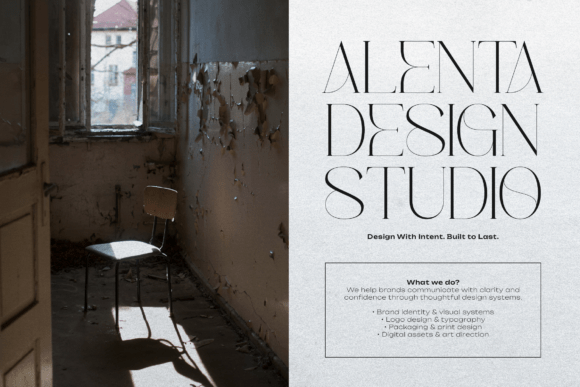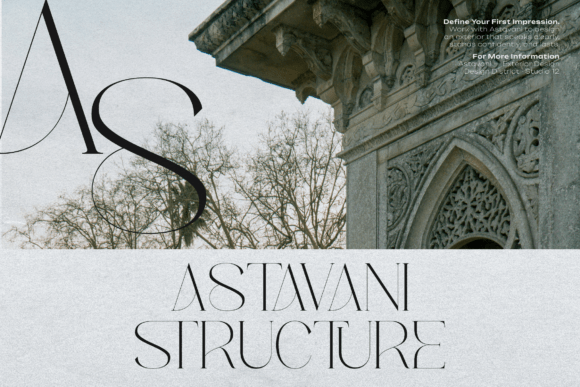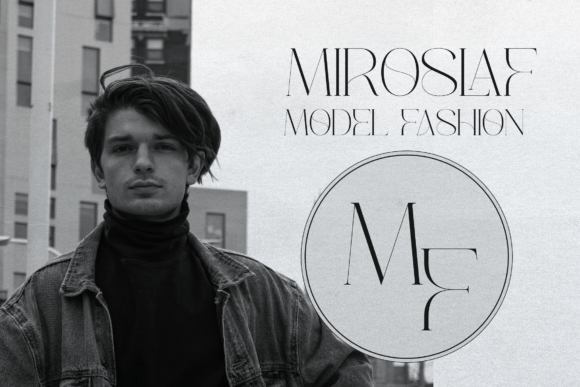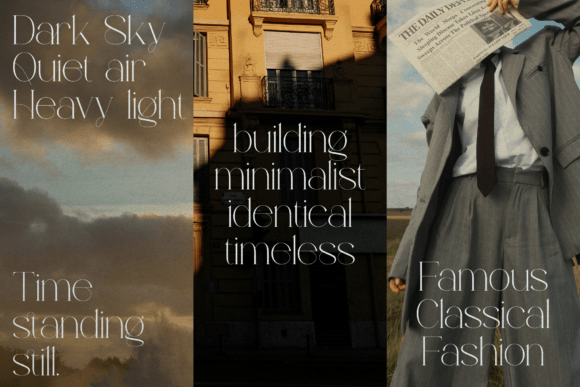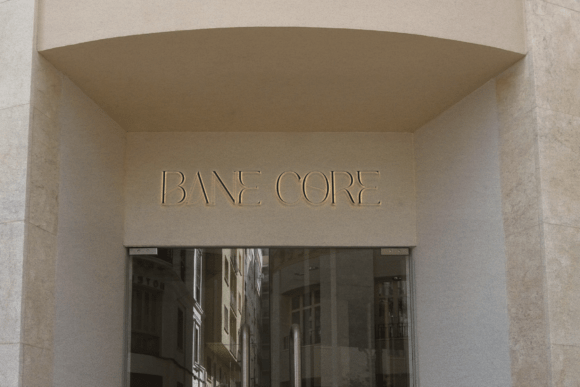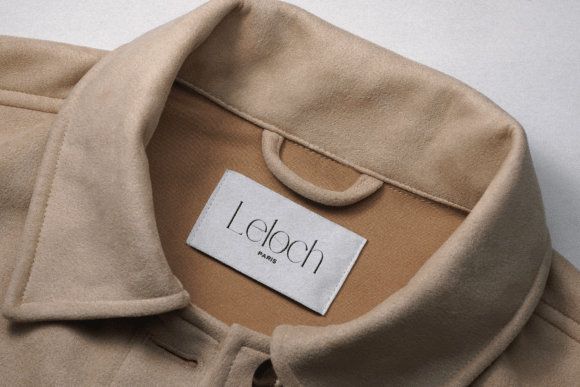
Introducing Arsenov Font: The Modern Classic Ligature Serif
In the world of typography, few fonts manage to strike a balance between classic elegance and modern flair. The Arsenov font, however, achieves this feat with remarkable precision. This contemporary take on the classic serif is redefining the way designers approach typography, offering a unique blend of bold, geometric lines and artistic ligatures that evoke a sense of custom-lettered sophistication.
What Makes Arsenov Stand Out?
The Arsenov typeface is distinguished by its wide proportions and unexpected ligatures, which set it apart from more traditional serif fonts. Its sharp angles and circular curves create a visual tension that is both arresting and harmonious, making it an ideal choice for designers seeking to make a statement. Whether you’re working on tech-focused branding, high-concept art galleries, or any project that demands attention, Arsenov delivers with maximum impact.
Versatility at Its Core
One of the most compelling aspects of the Arsenov font is its versatility. It effortlessly bridges the gap between archival and futuristic, making it suitable for a wide range of applications. From bold headlines and billboard advertisements to cinematic titles and editorial design, Arsenov’s strong character shines through. Its ability to command attention without overwhelming the senses makes it a go-to choice for designers looking to leave a lasting impression.
Pairing Suggestions for Maximum Effect
To truly harness the power of the Arsenov font, consider pairing it with complementary typefaces that enhance its unique qualities. Monospaced fonts or ultra-minimalist sans-serifs create a striking contrast that elevates both fonts. This combination results in a look that is modern, professional, and slightly edgy—a perfect blend for brands aiming to stand out in a crowded marketplace.
Applications of Arsenov Font
- Headlines and Titles: Arsenov’s bold and geometric design makes it an excellent choice for headlines, titles, and any text that needs to capture attention quickly.
- Branding and Advertising: For tech companies, art galleries, and brands with a modern edge, Arsenov offers a typographic solution that is both stylish and memorable.
- Cinematic and Editorial Projects: The font’s cinematic quality makes it suitable for movie titles, while its elegance and readability are perfect for editorial content.
Why Choose Arsenov?
Choosing the Arsenov font for your design project means opting for a typography solution that is not only visually striking but also highly functional. Its unique blend of classic and modern elements ensures that your message is delivered with clarity and style. Moreover, the font’s versatility allows it to adapt to various design contexts, making it a valuable addition to any designer’s toolkit.
The Arsenov font represents a significant evolution in serif typography, offering designers a modern classic that is both timeless and forward-thinking. Its distinctive ligatures, bold geometry, and adaptable nature make it an indispensable resource for creating impactful designs. Whether you’re defining a brand’s visual identity or crafting a compelling narrative through typography, Arsenov is poised to make a lasting impression.
Embrace the Arsenov font in your design projects and experience the power of typography that is not just about conveying information but also about creating an aesthetic experience. With Arsenov, every word, every headline, and every message becomes a visual statement that engages, inspires, and leaves a mark.